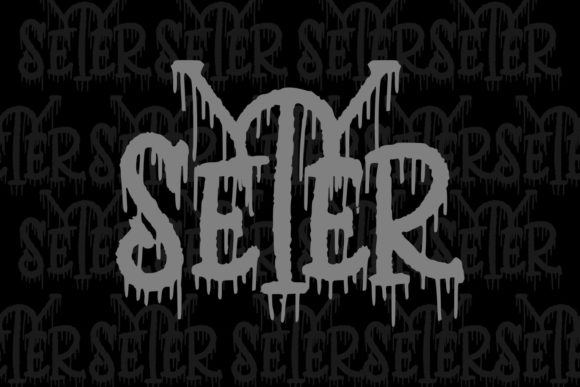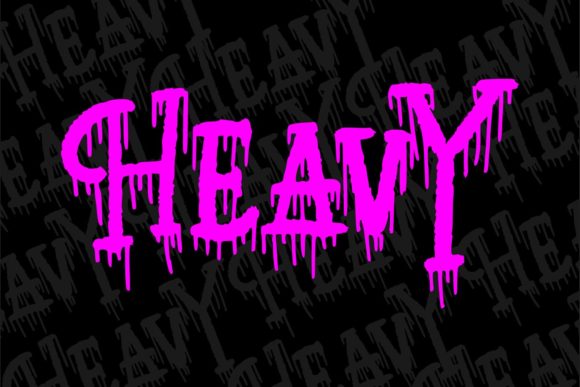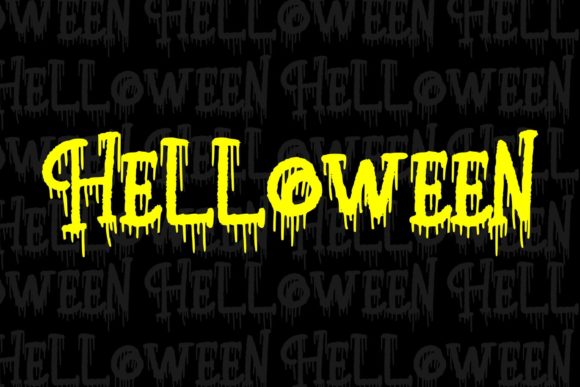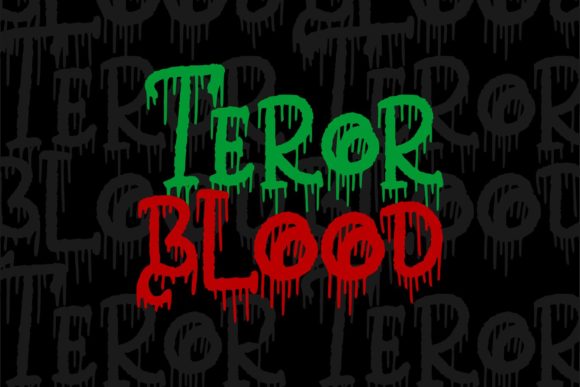
Unleash the Spookiness: Exploring the Dead Night Font
Are you ready to add a touch of eeriness to your designs? Look no further than the Dead Night Font, a spooky font with a crazy style that’s sure to send chills down the spine. In this article, we’ll dive into the world of Dead Night, exploring its haunted appearance, and what makes it a must-have for designers and crafters.
The Haunted Appearance of Dead Night
The Dead Night Font is a masterclass in creepy typography. Its irregular shapes and jagged lines evoke a sense of unease, perfect for projects that require a spooky or supernatural vibe. The font’s haunted appearance is reminiscent of old, abandoned mansions, creepy forests, and abandoned asylums. With Dead Night, you can add a touch of macabre to your designs, making them stand out from the crowd.
Inspiration from the Dark Side
Dead Night is more than just a font – it’s a mood, a feeling, a vibe. It’s perfect for designers and crafters who want to tap into the darker side of creativity. Whether you’re working on a Halloween-themed project, a horror movie poster, or a spooky craft, Dead Night is the perfect companion. Its unique style will inspire you to create something truly terrifying… or at least, eerily fascinating.
What Makes Dead Night So Special?
So, what sets Dead Night apart from other fonts? Here are a few reasons why this spooky font has gained a cult following:
- Unique Character Set: Dead Night features a wide range of characters, including letters, numbers, and symbols, all with that signature spooky style.
- High-Quality Design: The font is meticulously crafted, with attention to detail and a focus on legibility, even at small sizes.
- Crazy Style: Dead Night’s irregular shapes and jagged lines make it perfect for adding a touch of chaos to your designs.
- Versatility: This font can be used for a wide range of projects, from digital designs to print materials, and even handmade crafts.
Using Dead Night in Your Designs
Now that you’re convinced of Dead Night’s awesomeness, let’s talk about how to use it in your designs. Here are a few ideas to get you started:
- Halloween-themed projects: Dead Night is a no-brainer for Halloween-themed designs, such as invitations, posters, and social media graphics.
- Horror movie posters: Add a touch of eeriness to your horror movie posters with Dead Night’s spooky style.
- Crafts and DIY projects: Use Dead Night to add a personal touch to your handmade crafts, such as spooky signs, banners, and decorations.
- Digital designs: Dead Night can be used in digital designs, such as video games, animations, and web graphics.
Tips and Tricks for Working with Dead Night
Here are a few tips and tricks to help you get the most out of Dead Night:
- Experiment with colors: Dead Night looks great in bold, bright colors, but it can also be used in more muted tones for a more subtle effect.
- Play with textures: Add texture to your designs by combining Dead Night with other fonts or graphics.
- Keep it legible: While Dead Night is a highly stylized font, make sure to keep your text legible, especially for body text.
In conclusion, Dead Night is a spooky font with a crazy style that’s sure to inspire your designs. With its haunted appearance, unique character set, and versatility, Dead Night is a must-have for designers and crafters. Whether you’re working on a Halloween-themed project or just want to add a touch of eeriness to your designs, Dead Night is the perfect companion. So, get creative, and let the spookiness begin!